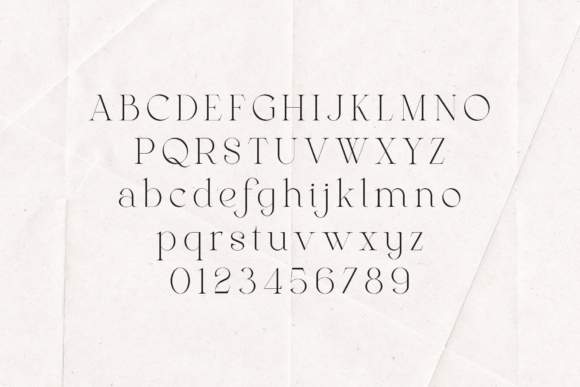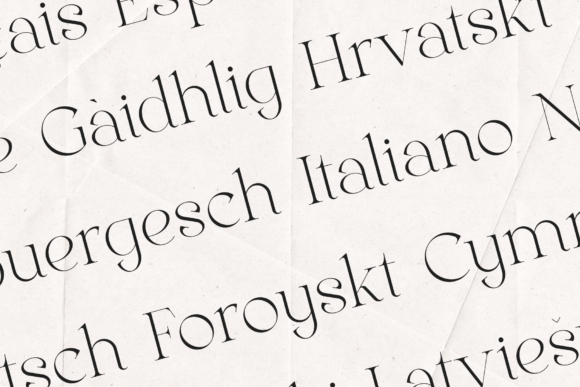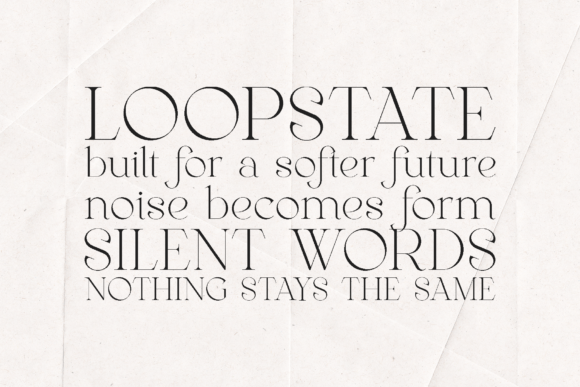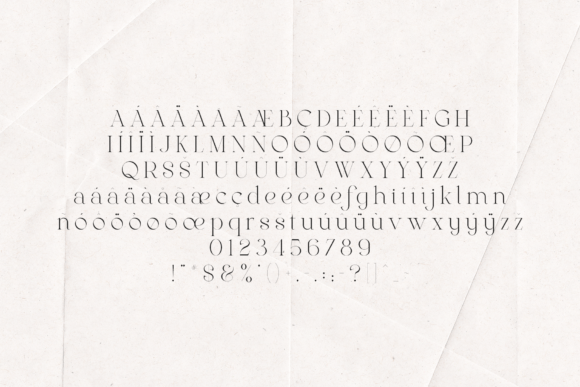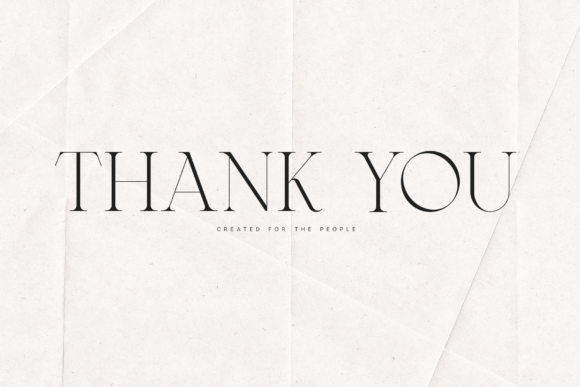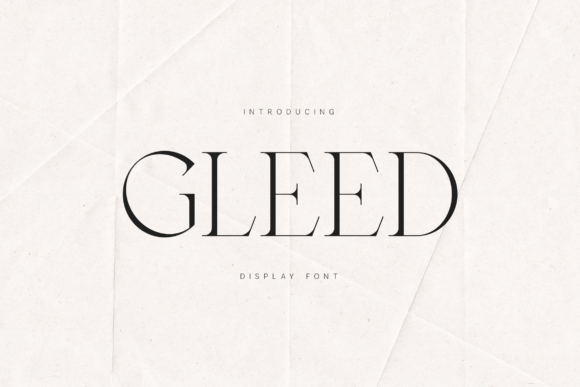
Introducing Gleed Font: Elevate Your Designs with Elegance and Sophistication
In the world of typography, a well-crafted font can make all the difference in elevating a design from ordinary to extraordinary. Gleed Font is a stunning example of modern serif typography, designed to bring a touch of elegance and sophistication to a wide range of design projects. With its refined proportions, delicate contrast, and timeless letterforms, Gleed is the perfect choice for designers and crafters looking to add a level of refinement to their work.
What is Gleed Font?
Gleed Font is an elegant modern serif typeface that has been carefully crafted to provide a versatile and sophisticated solution for designers. Its refined proportions and delicate contrast make it an ideal choice for use in editorial layouts, branding systems, logo design, magazine titles, posters, packaging design, visual identity systems, social media graphics, and modern typographic compositions.
Key Features of Gleed Font
• Refined Proportions: Gleed’s letterforms have been carefully proportioned to create a sense of balance and harmony, making it perfect for use in a wide range of design projects.
• Delicate Contrast: The font’s delicate contrast adds a level of sophistication and elegance, making it ideal for use in high-end designs.
• Timeless Letterforms: Gleed’s letterforms have been designed to stand the test of time, ensuring that your designs will remain stylish and relevant for years to come.
• Versatile: Gleed is a versatile typeface that can be used in a wide range of design projects, from editorial layouts to branding systems and logo design.
Use Cases for Gleed Font
Gleed Font is suitable for use in a wide range of design projects, including:
• Editorial Layouts: Gleed’s refined proportions and delicate contrast make it perfect for use in editorial layouts, such as magazine articles and blog posts.
• Branding Systems: The font’s elegant and sophisticated design makes it an ideal choice for use in branding systems, including logos and visual identity systems.
• Logo Design: Gleed’s timeless letterforms and versatile design make it perfect for use in logo design, providing a clean and sophisticated look.
• Magazine Titles: The font’s elegant design and refined proportions make it an ideal choice for use in magazine titles, adding a touch of sophistication to any publication.
• Posters: Gleed’s bold and elegant design makes it perfect for use in posters, providing a clean and sophisticated look.
• Packaging Design: The font’s versatile design and refined proportions make it suitable for use in packaging design, adding a level of elegance and sophistication to any product.
• Visual Identity Systems: Gleed’s elegant and sophisticated design makes it an ideal choice for use in visual identity systems, providing a clean and refined look.
• Social Media Graphics: The font’s bold and elegant design makes it perfect for use in social media graphics, providing a clean and sophisticated look.
Why Choose Gleed Font?
With so many fonts available, why choose Gleed Font? Here are just a few reasons why Gleed stands out from the crowd:
• Unique Design: Gleed’s unique design and refined proportions make it a standout font that will elevate your designs and add a level of sophistication.
• Versatility: The font’s versatility makes it suitable for use in a wide range of design projects, from editorial layouts to branding systems and logo design.
• Elegance: Gleed’s elegant design and delicate contrast make it perfect for use in high-end designs, adding a touch of sophistication and refinement.
• Timeless: The font’s timeless letterforms ensure that your designs will remain stylish and relevant for years to come.
Author vladfedotovv
In conclusion, Gleed Font is a stunning example of modern serif typography, designed to bring a touch of elegance and sophistication to a wide range of design projects. With its refined proportions, delicate contrast, and timeless letterforms, Gleed is the perfect choice for designers and crafters looking to add a level of refinement to their work. Whether you’re working on editorial layouts, branding systems, logo design, or any other design project, Gleed Font is sure to elevate your designs and provide a clean, sophisticated look.